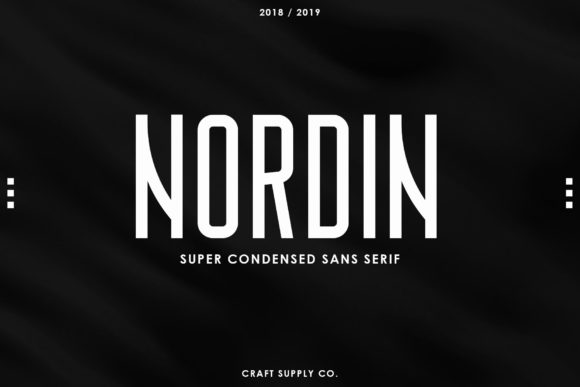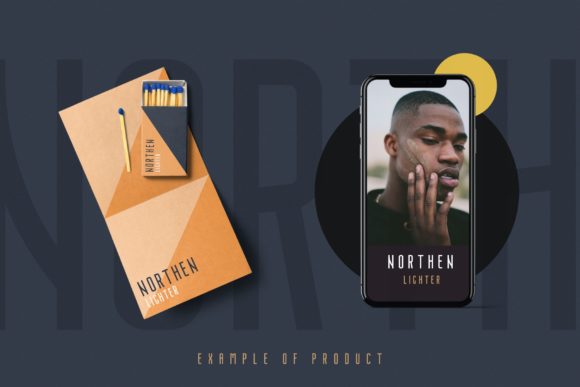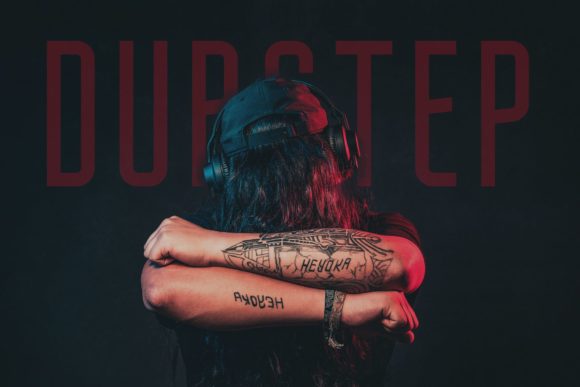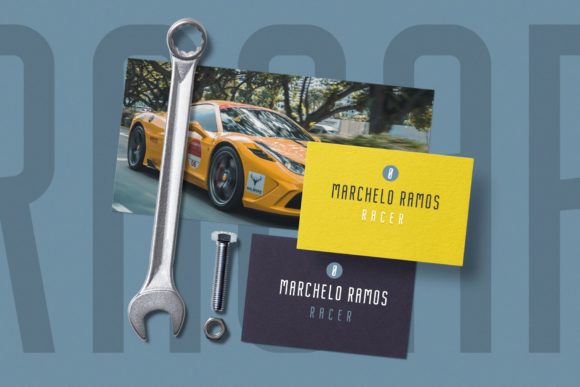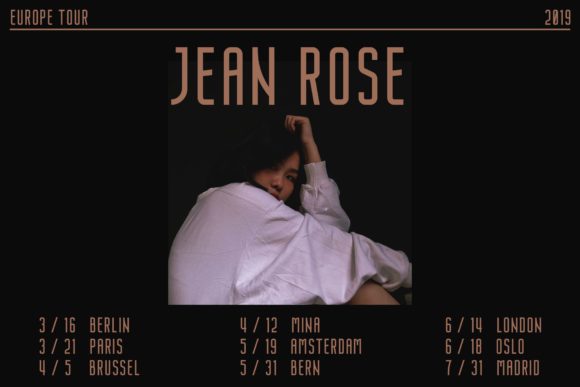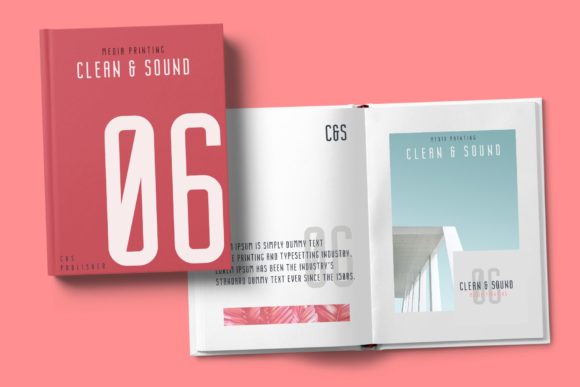
Introduction to Nordin Font
You’re in the midst of a creative project, pouring your heart and soul into every detail. The perfect font can elevate your design and make it truly stand out. Have you ever struggled to find that one font that perfectly captures the essence of your vision? For designers, the right font can be the difference between a mediocre design and a masterpiece. That’s where the Nordin Font comes in – a high-quality, condensed Sans Serif font that’s sure to add a touch of modern elegance to any design.
With its striking and modern feel, the Nordin Font is perfect for a wide range of creative projects, from art designs and modern envelope lettering to book titles and pop vintage designs. Whether you’re working on a DIY project or need a design resource for a commercial client, this font is sure to impress. And the best part? It’s available for free download, making it an accessible and valuable addition to any designer’s toolkit.
Key Features of Nordin Font
- High-quality font with a transparent background, ideal for creative projects that require a clean and minimalist design.
- Supports various font sizes and resolutions, making it suitable for both digital and print designs.
- Features a unique and modern design style, perfect for creative projects that require a touch of elegance and sophistication.
Honest Review: Nordin Font
I recently had the chance to work with the Nordin Font, and I must say it’s been a great addition to my design arsenal. This high quality font is perfect for any creative project that requires a clean and modern look.
One of the things I love about Nordin Font is its transparent background, making it super easy to use with any background image or color. The font is also available for free download, which is a huge plus for designers on a budget.
- High quality design: Nordin Font looks great on any screen resolution.
- Transparent background: Easy to use with any background image or color.
- Limited character set: May not be suitable for projects that require a wide range of characters.
- No bold or italic variations: May not be suitable for projects that require emphasis.
Overall, I’m really impressed with the Nordin Font. It’s a great design resource that’s perfect for any creative project. While it has some limitations, the benefits far outweigh the drawbacks.
Tips for Getting the Most Out of Nordin Font
Experiment with different font sizes, colors, and styles to create a unique look for your design project. Use Nordin Font’s transparent background to add depth and visual interest to your graphics and presentations.
Nordin Font is perfect for designing creative projects, such as graphics, presentations, and documents. Its high quality and transparent background make it an excellent choice for professionals and hobbyists alike.